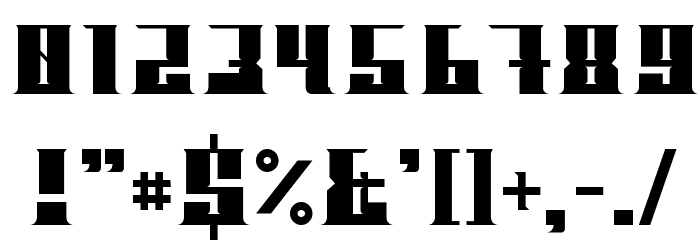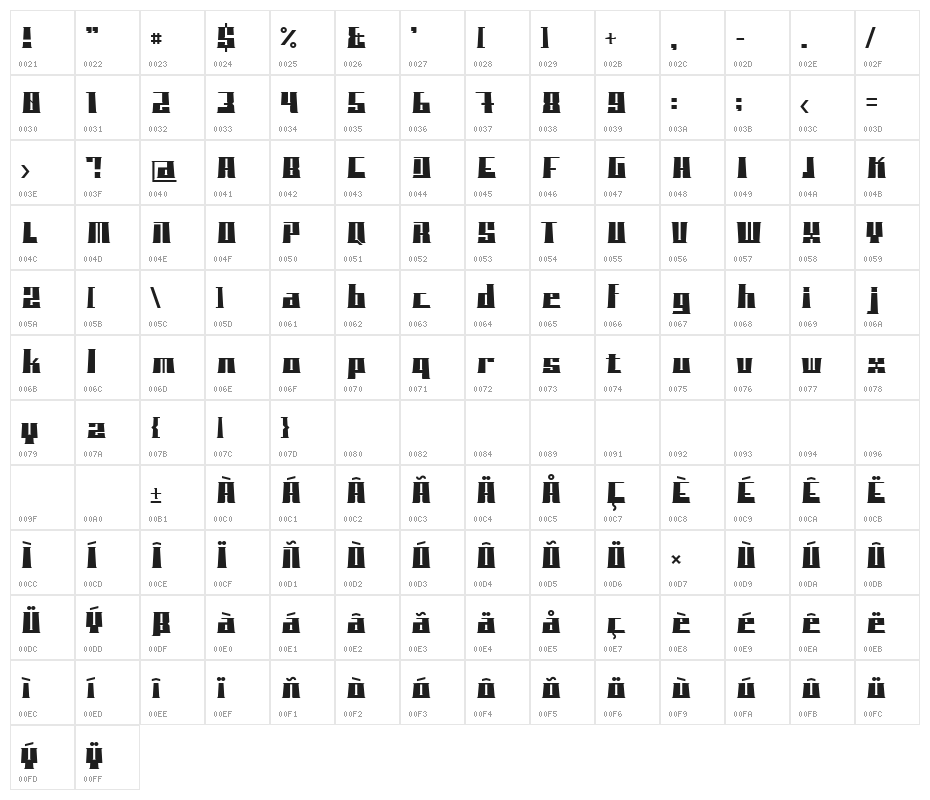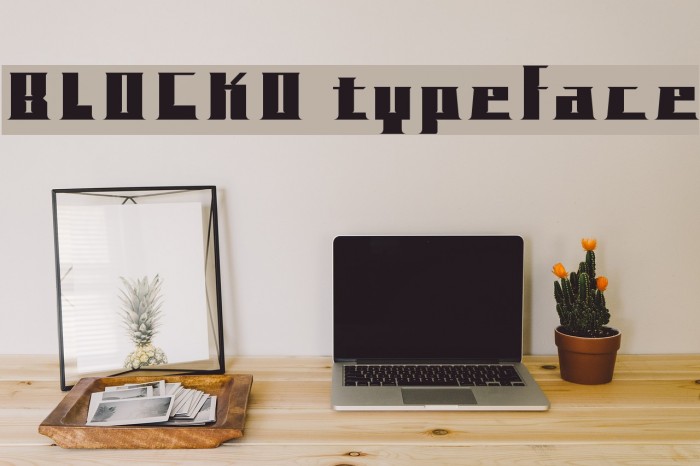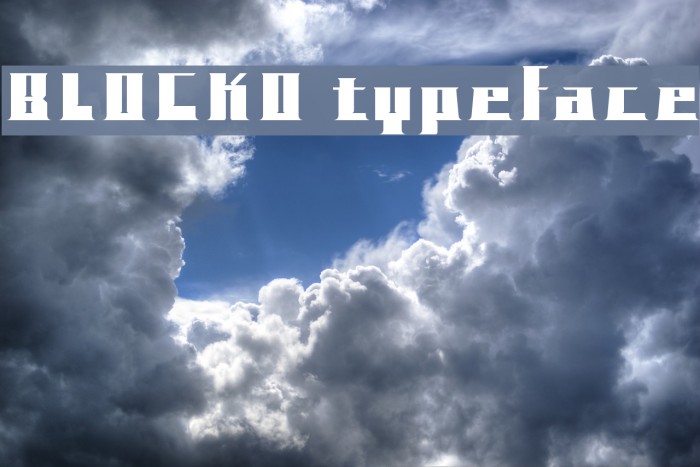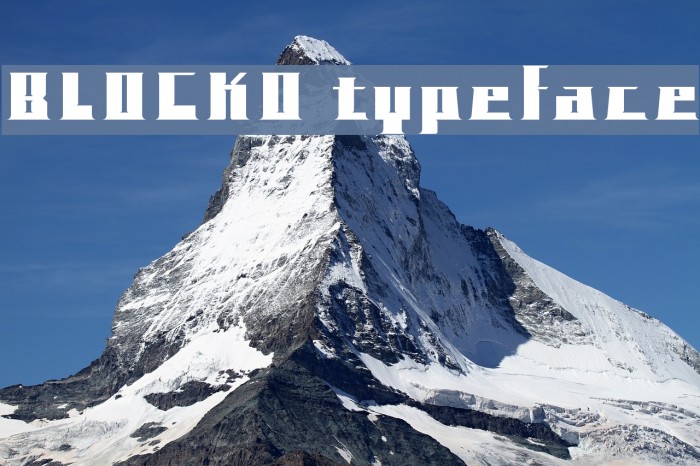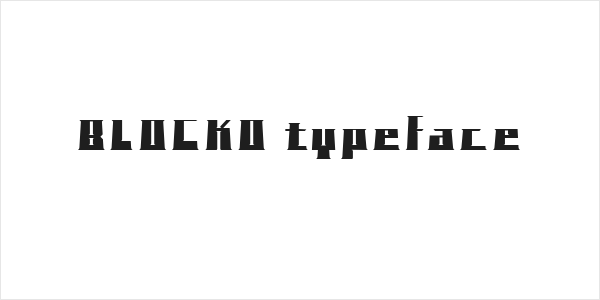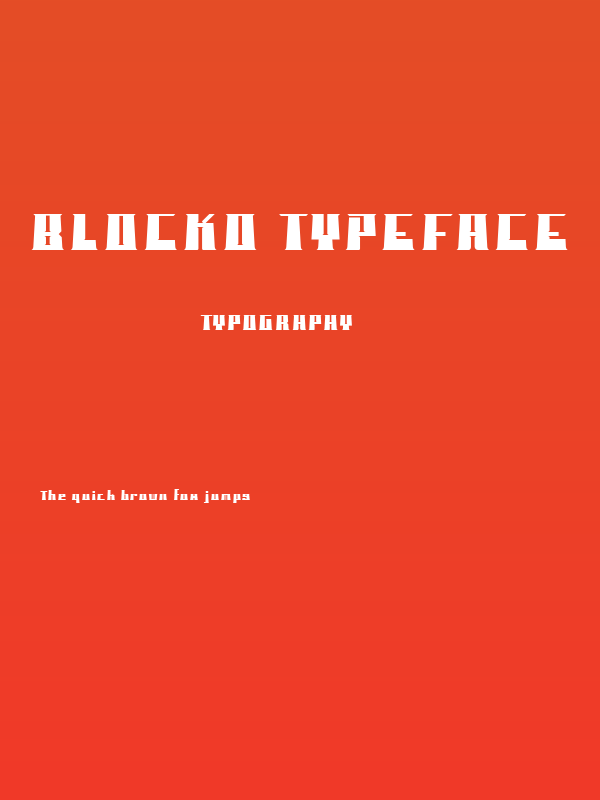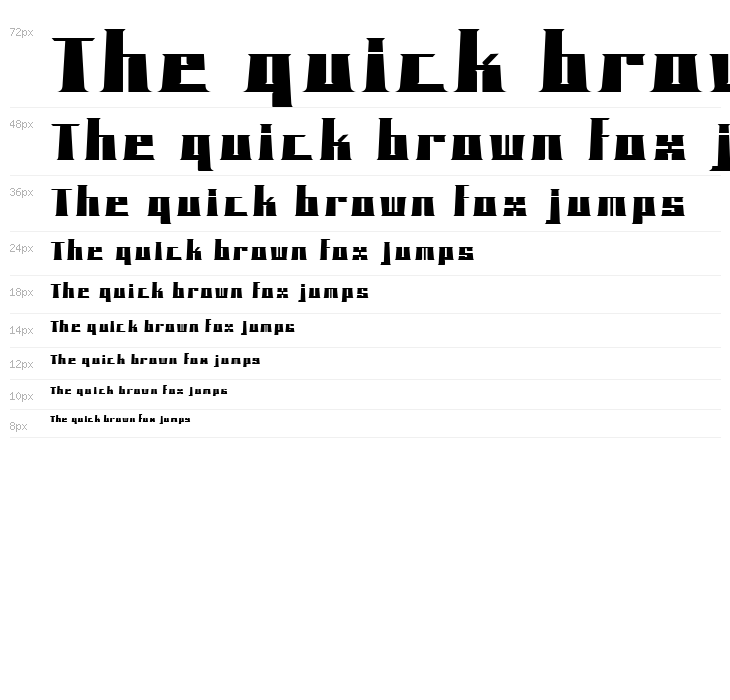
BLOCKO typeface Font
BLOCKO typeface Description
This typeface features a bold, geometric design with a distinctly modern and industrial feel. The characters are constructed with sharp angles and straight lines, creating a blocky appearance that is both striking and assertive. The uppercase and lowercase letters maintain a consistent height, contributing to a uniform look across the typeface. The numbers and special characters follow the same design principles, ensuring cohesion throughout. This typeface is ideal for projects that require a strong visual impact, such as posters, logos, and headlines. Its unique style makes it stand out, yet it remains legible and functional.
| Proposed Projects | Ideal for posters, logos, headlines, and any project needing a strong visual impact. |